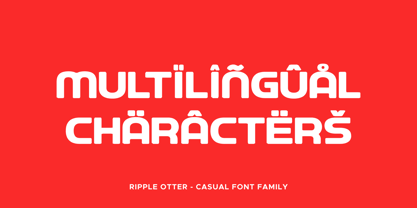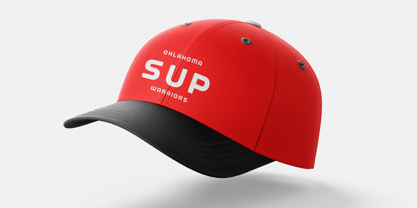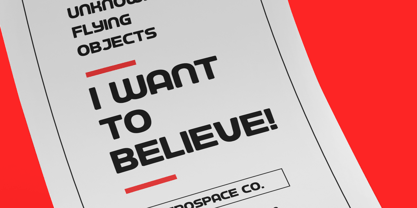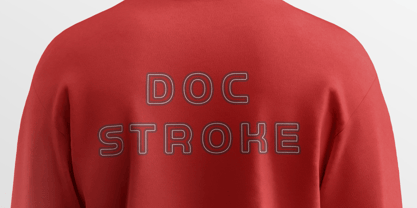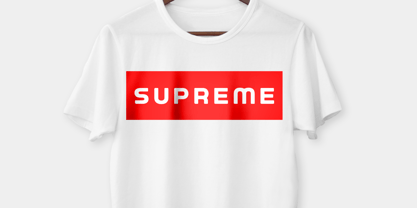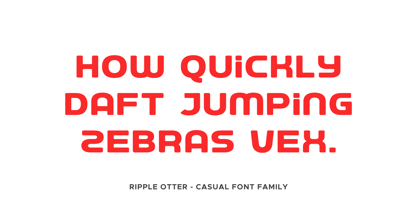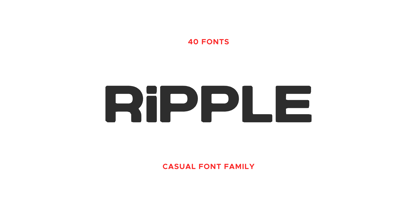
Ripple Otter is a soft rounded sans serif with textured styles like Brush, Rust, and Ink. Perfect for playful branding, posters, packaging, and display design.
The design focuses on smooth rounded terminals and comfortable spacing, creating a welcoming and highly readable look while maintaining a distinctive character. Ripple Otter works beautifully in both large headlines and short display text where personality and charm are important.
The family includes Regular, Italic, Outline, and Outline Italic styles, along with expressive texture variants such as Brush, Cut, Eroded, Grit, Ink, Rough, Rust, Scratch, and Worn. Each texture also comes with Italic and Outline companions, giving designers a versatile toolkit for layered typography and eye-catching compositions.
Ripple Otter supports a broad range of Latin-based languages, making it suitable for international design projects and multilingual branding.
With its soft curves, textured personality, and extensive style library, Ripple Otter is a versatile display typeface perfect for playful branding, posters, merchandise, packaging, logos, and creative digital design.
Ripple Otter